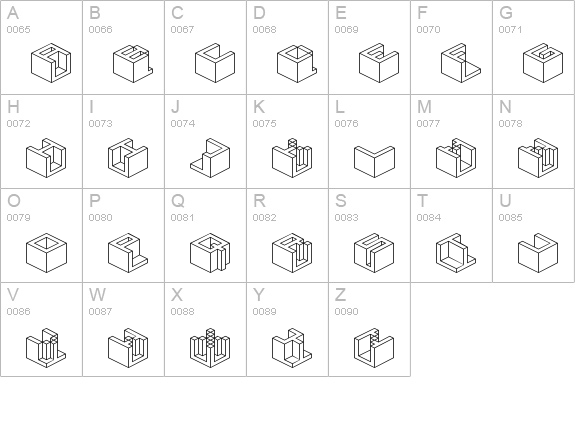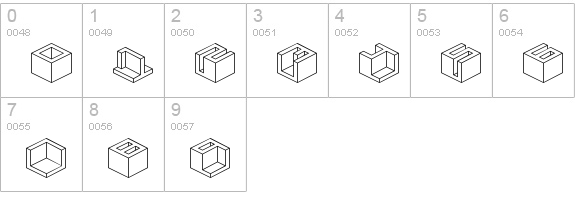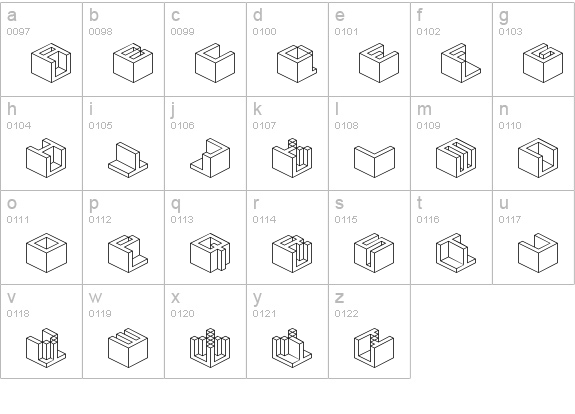
Qbicle 4 BRK Font Details
Introducing Qbicle 4 BRK, a stunning font that effortlessly combines modern sophistication with a touch of playfulness. This versatile typeface is perfect for adding a unique flair to any design project, whether it be for print, web, or multimedia. Qbicle 4 BRK boasts a sleek and clean aesthetic, with beautifully crafted letterforms that exude elegance and professionalism. Its bold and distinctive characters captivate the eye, making a bold statement while still maintaining readability. What sets Qbicle 4 BRK apart is not just its impeccable design, but also its accessibility. This font is freely available to download at FontsMarket.com, allowing designers, creatives, and enthusiasts alike to easily incorporate this stunning typeface into their projects. No need to worry about breaking the bank or compromising on quality – Qbicle 4 BRK offers both. Whether you're designing a logo, creating a brochure, or crafting a website, Qbicle 4 BRK is the perfect choice to elevate your work to new heights. Its versatility and timeless appeal make it suitable for a wide range of applications, from corporate branding to personal projects. With its generous range of characters and ligatures, Qbicle 4 BRK provides ample opportunities for customization and creativity. Its clean lines and balanced proportions ensure legibility across various sizes and mediums, making it a reliable choice for both print and digital design. Don't miss out on the opportunity to enhance your design toolkit with this exceptional font. Download Qbicle 4 BRK for free at FontsMarket.com and unlock a world of possibilities. Elevate your projects with this captivating typeface and let your creativity soar.